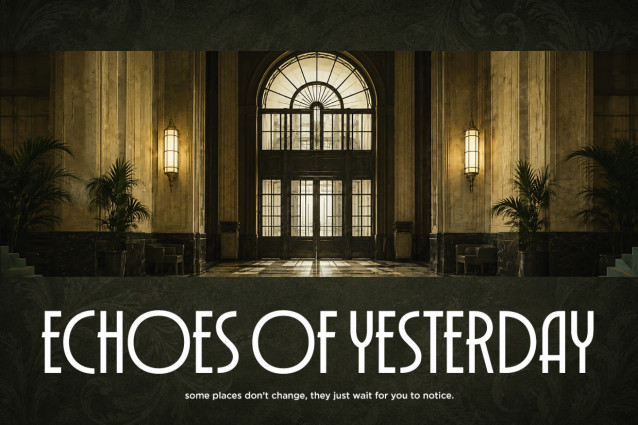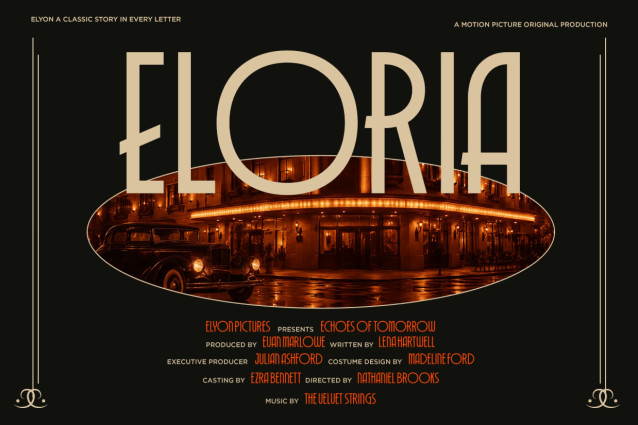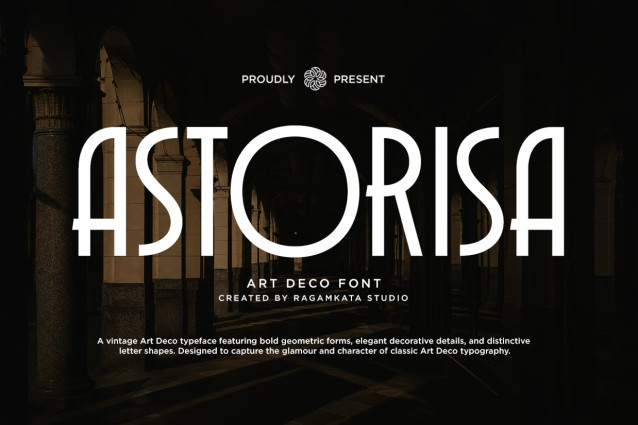
Astorisa is an elegant Art Deco display font inspired by the timeless glamour of the 1920s and 1930s. Featuring refined geometric forms, tall sophisticated letterforms, and a luxurious vintage character, Astoria is designed to bring a cinematic and premium atmosphere to your creative projects.
Perfect for luxury branding, hotel and motel identities, editorial layouts, fashion campaigns, posters, invitations, packaging, restaurant branding, magazine covers, signage, and vintage-inspired designs.
Its distinctive Art Deco style makes it an excellent choice for projects that need a sophisticated, glamorous, and timeless visual identity. Astoria also includes uppercase and lowercase characters, numerals, punctuation, alternate characters, and multilingual support.